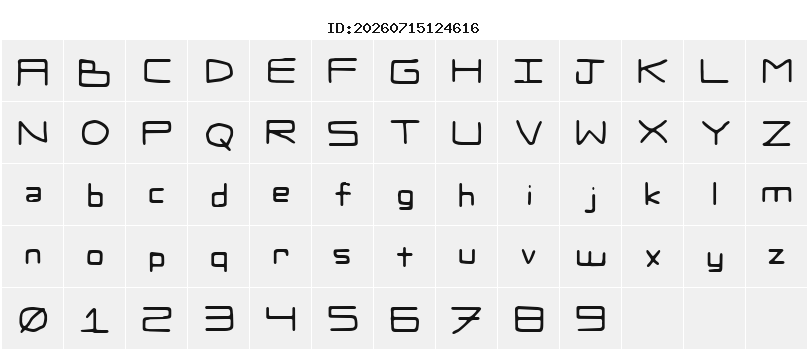
• Font Name: Zaboodla
• Full Font Name: Zaboodla
About Zaboodla.ttf
Zaboodla.ttf is a modern, elegant sans-serif font designed for ultimate readability and visual harmony. Perfect for branding, headlines, web design, and print materials.